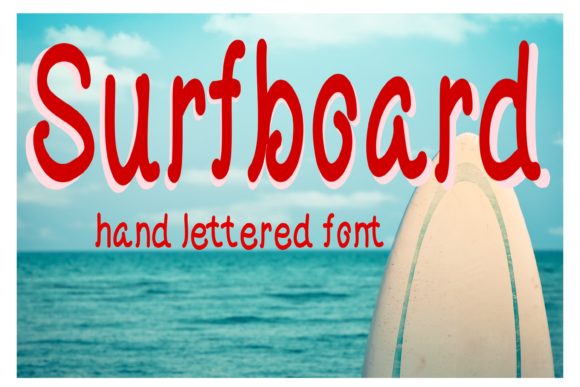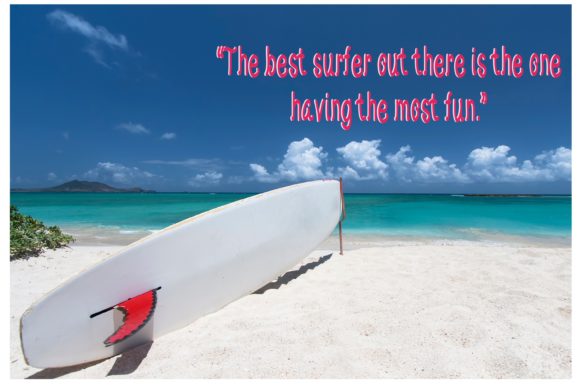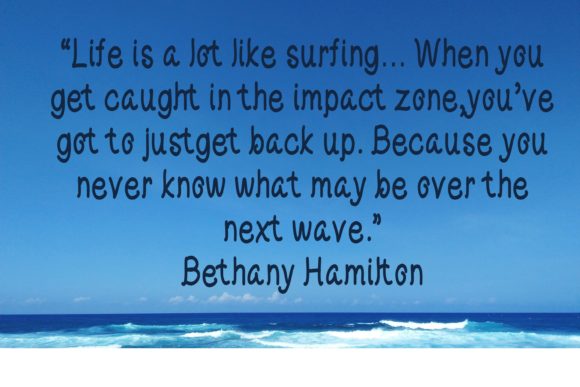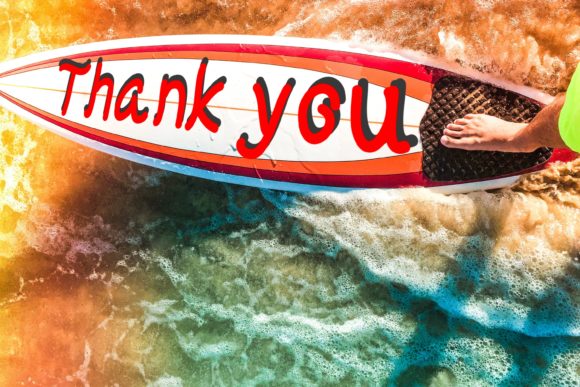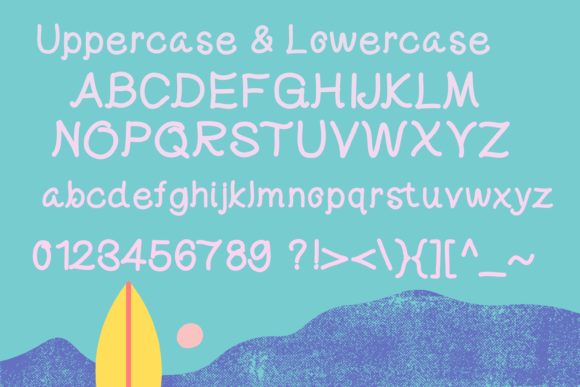
Surfboard Font
About Surfboard Font
Surfboard is a fun looking and fresh handwritten font. Suitable to a wide variety of designs due to its neat and simple style, this font has the potential to become your favorite go-to font, no matter the occasion!